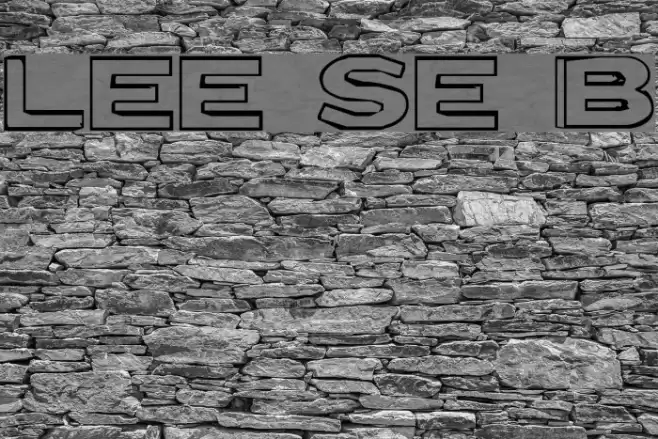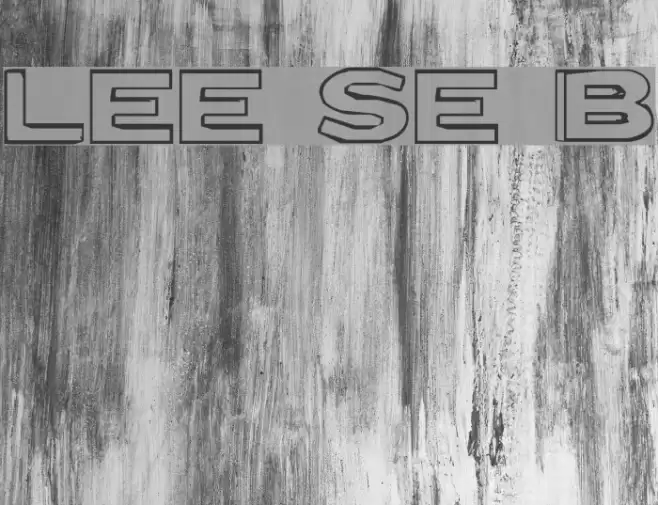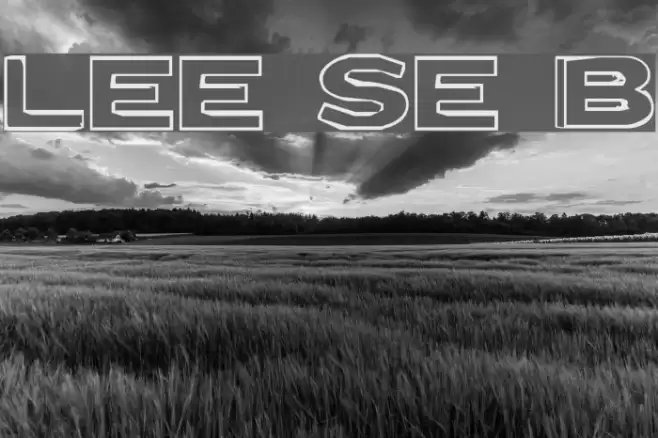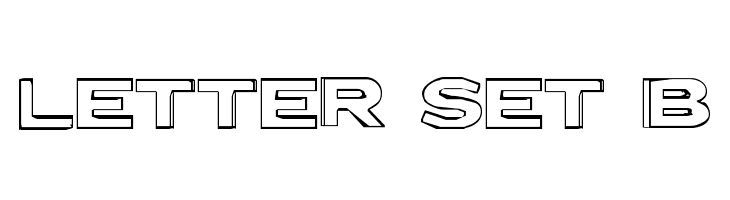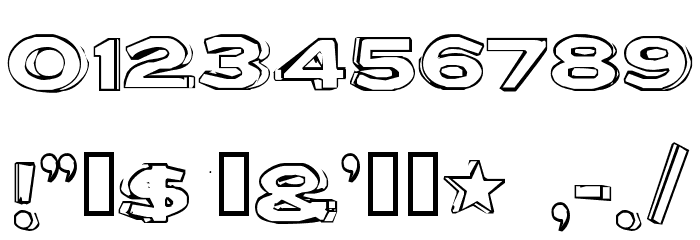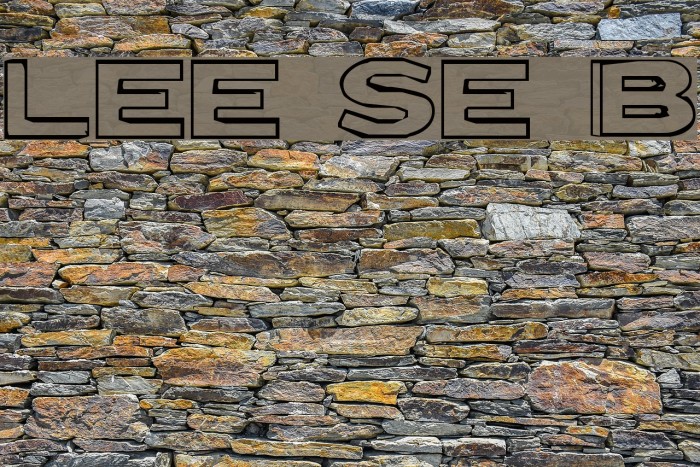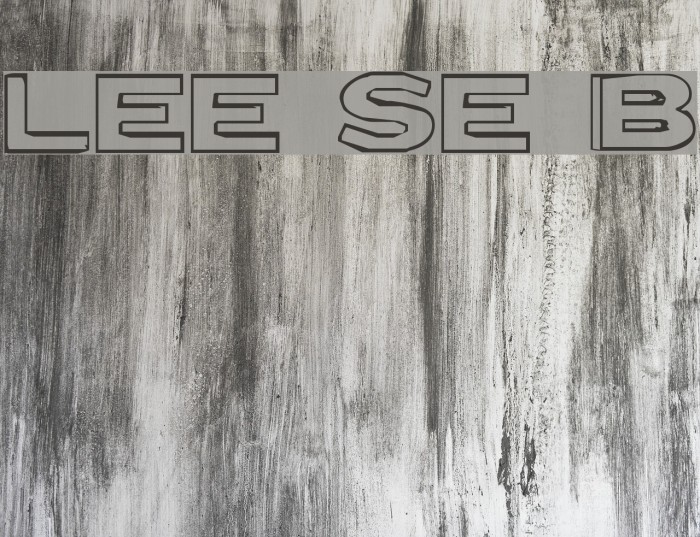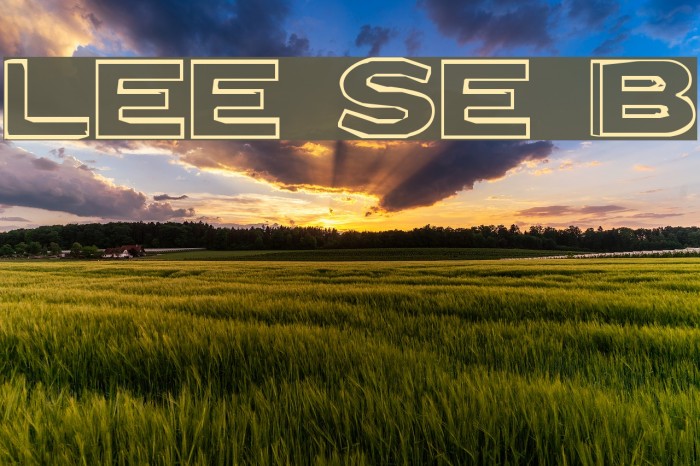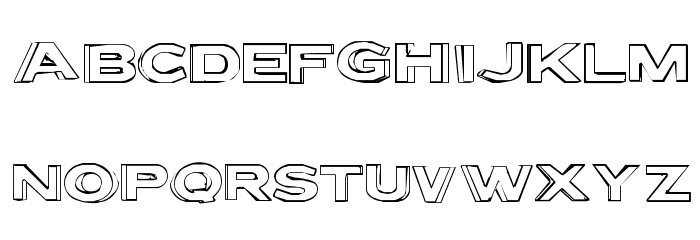
Letter Set B Font
Letter Set B Description
This font features a bold, three-dimensional outline style that gives each character a striking and dynamic appearance. The letters are uppercase and have a consistent geometric structure, with sharp angles and clean lines that create a sense of depth and movement. The numbers and special characters follow the same design principles, ensuring a cohesive look across all elements. The font's unique style makes it ideal for attention-grabbing headlines and creative projects where a modern and impactful aesthetic is desired.
A bold, three-dimensional outline font with a modern and dynamic style from Outline fonts.
- Proposed Projects: Ideal for posters, logos, headlines, and any design project requiring a bold and eye-catching font.